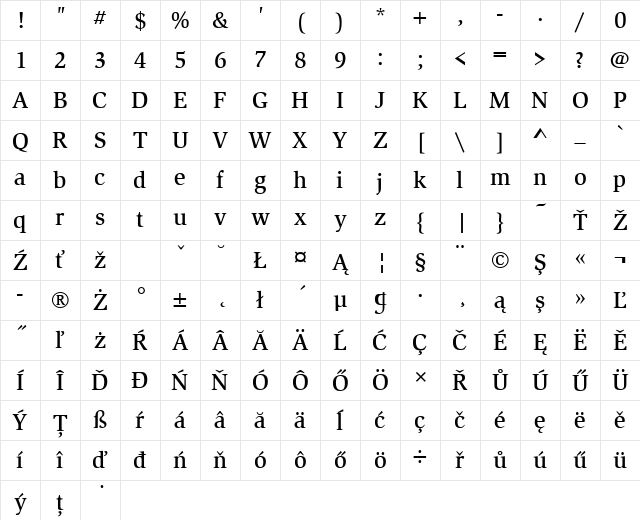
SlimbachItcTEEMed Regular
Design Context for SlimbachItcTEEMed
SlimbachItcTEEMed is a composed and adaptable typeface that performs quietly and consistently across a wide range of design contexts.
Pro Tip: Use SlimbachItcTEEMed in both headline and body roles to test its range before committing to a single application.